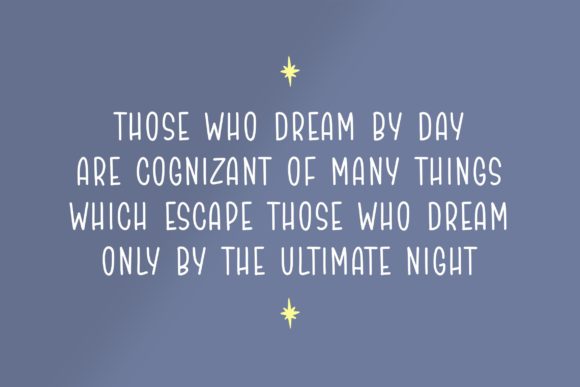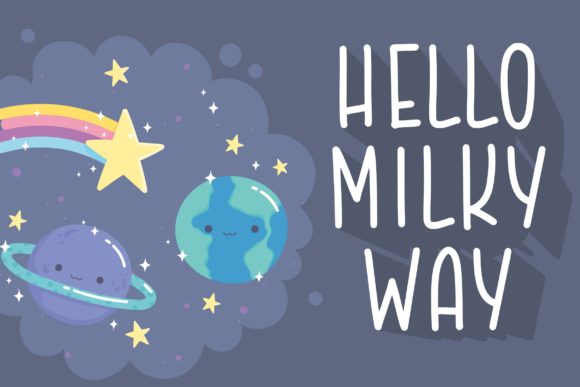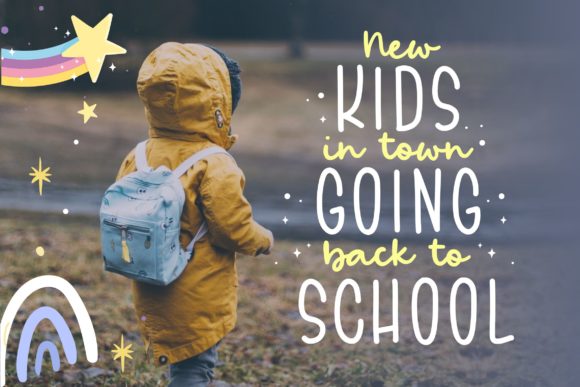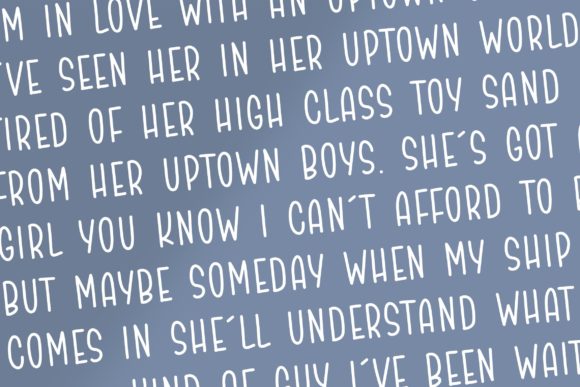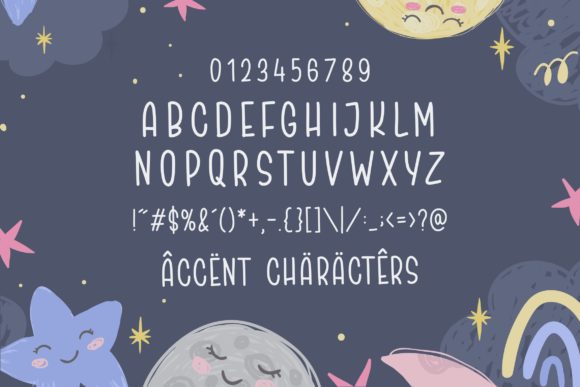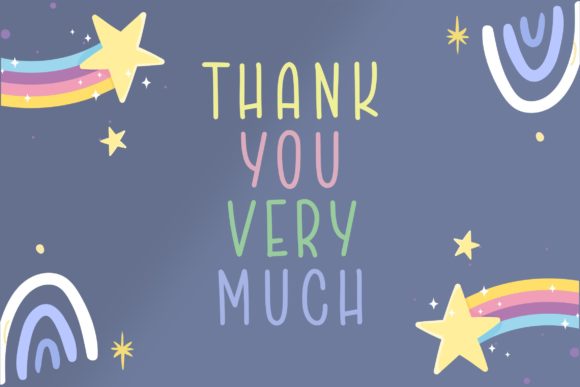
Introduction to Night Jump Font
Have you ever found yourself in the middle of a creative project, staring at a blank canvas, and suddenly, a spark of inspiration strikes? For designers, these moments are precious, and the right tools can make all the difference. That’s where Night Jump Font comes in – a beautiful, handwritten font that adds a touch of personality to any design.
Whether you’re working on a product packaging project, a branding campaign, or a social media post, Night Jump Font is the perfect design resource to elevate your creative vision. With its high-quality, transparent background, this font is ideal for any project that requires a unique, eye-catching look. And the best part? It’s available for free download, making it an accessible addition to any designer’s toolkit.
Key Features of Night Jump Font
- Unique, hand-drawn design ideal for creative projects requiring a high-quality, eye-catching font.
- Transparent background, making it easy to layer over images or use as a design resource for your project.
- Perfect for use in digital art, graphic design, and other creative fields where a distinctive font is needed.
- High-resolution design, ideal for printing and digital applications.
Honest Review: Night Jump Font
I recently had the chance to work with the Night Jump Font, and I’m excited to share my thoughts with you. As a designer, I’m always on the lookout for high-quality fonts that can elevate my creative projects. In this review, I’ll share what works well, any limitations I encountered, and my overall impression of this design resource.
- High-quality design: The Night Jump Font has a unique and modern aesthetic that’s perfect for creative projects.
- Transparent background: The font’s transparent background makes it easy to work with, especially when designing for digital platforms.
- Limited customization options: While the font is versatile, it may not be suitable for projects that require extensive customization.
- Not ideal for small text: Due to its modern design, the font may not be the best choice for small text or body copy.
Overall, I’m impressed with the Night Jump Font. Its high-quality design, transparent background, and free download make it a great addition to any designer’s toolkit. While it may have some limitations, it’s a fantastic resource for creative projects that require a modern and sleek aesthetic.
Night Jump Font
The Night Jump Font is a unique, high-quality design resource ideal for creative projects that require a touch of sophistication and elegance. With its transparent background, this font can be easily layered over any image or color to create a visually striking effect.
Tips for Getting the Most Out of Night Jump Font
To get the most out of the Night Jump Font, try layering it over different colors and images to create unique, high-contrast effects. You can also experiment with different font sizes and styles to create a visually striking composition.
The Night Jump Font is ideal for a variety of creative projects, including branding and identity design, editorial and publishing design, and advertising and marketing materials.